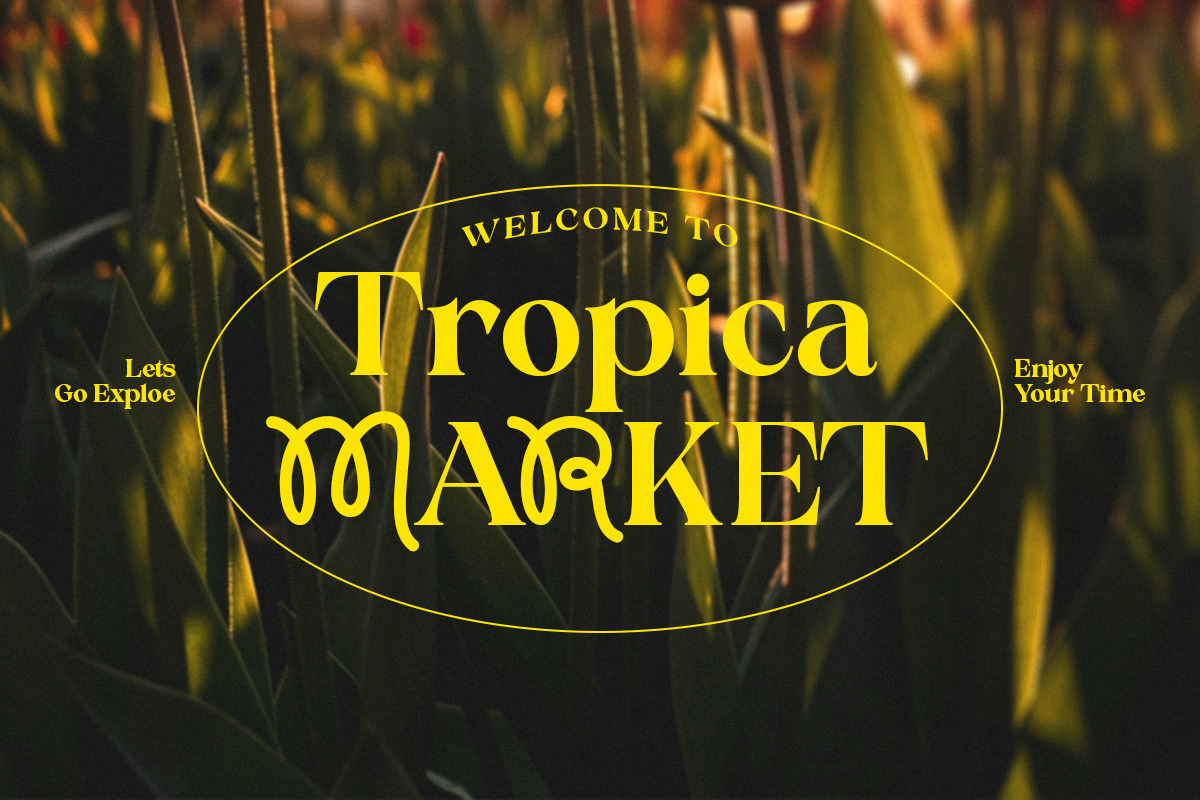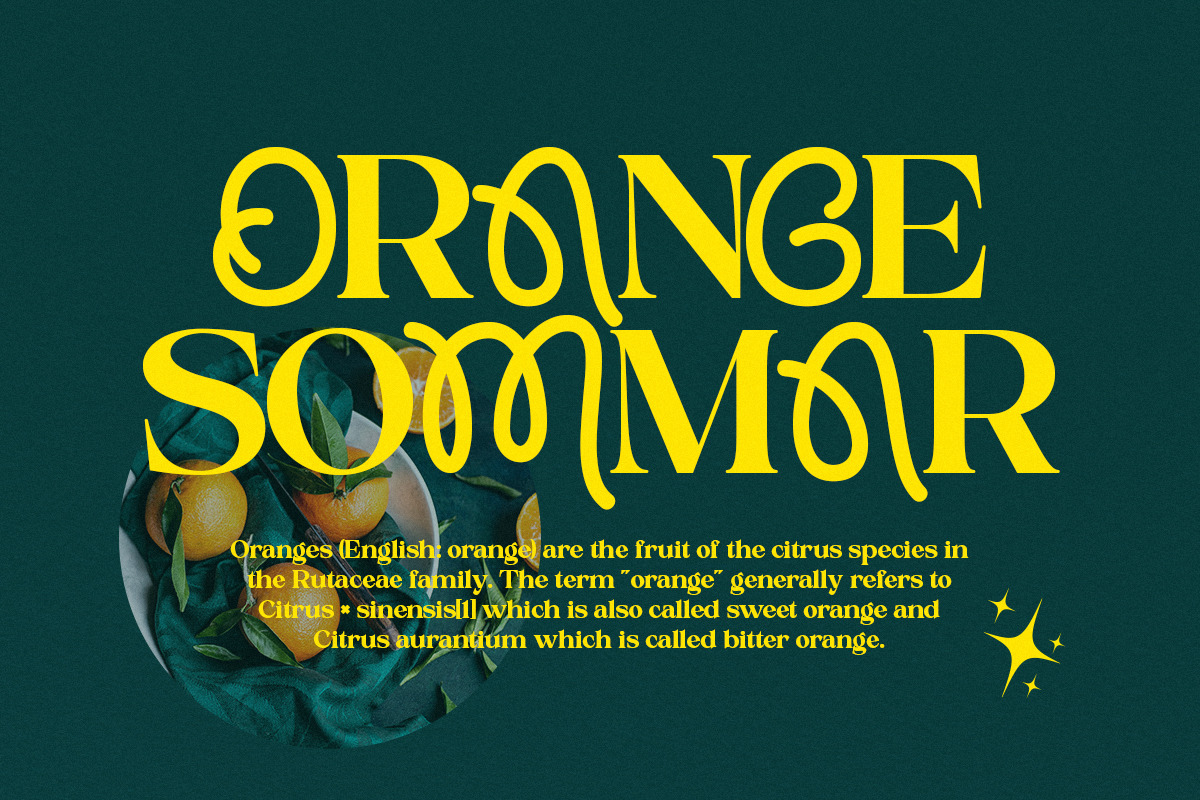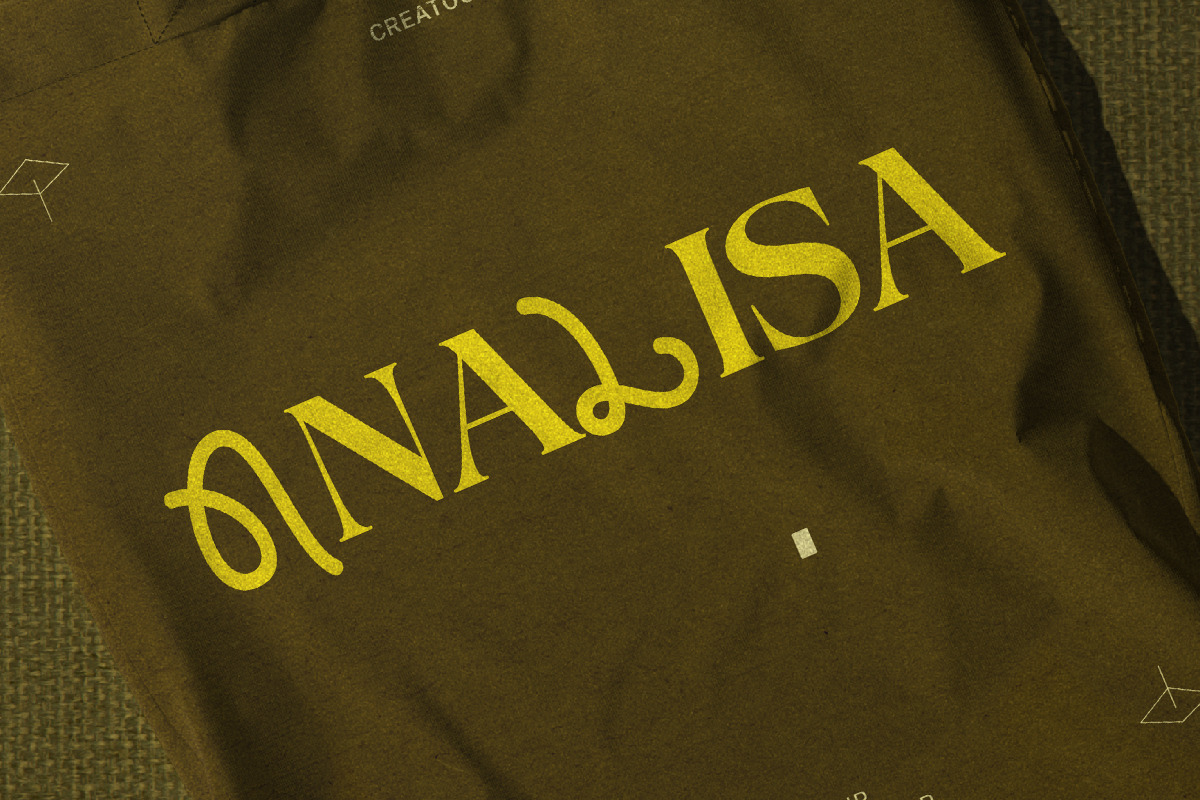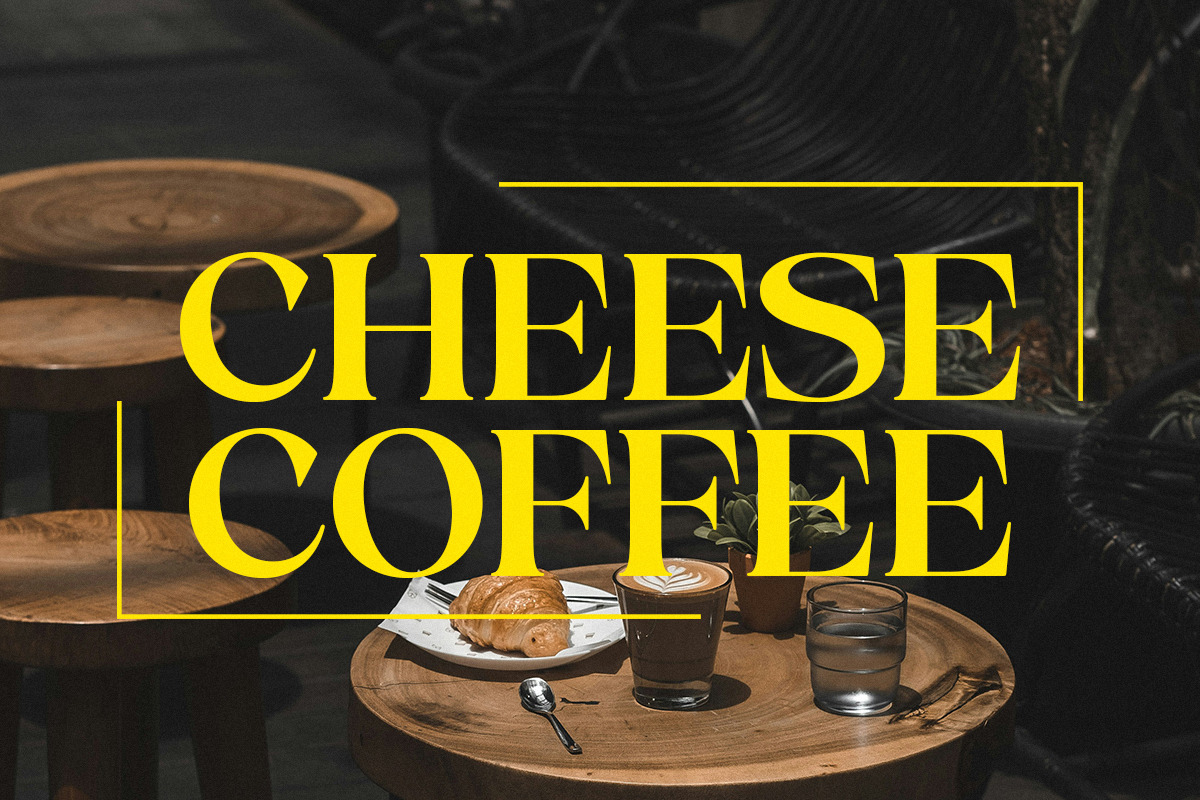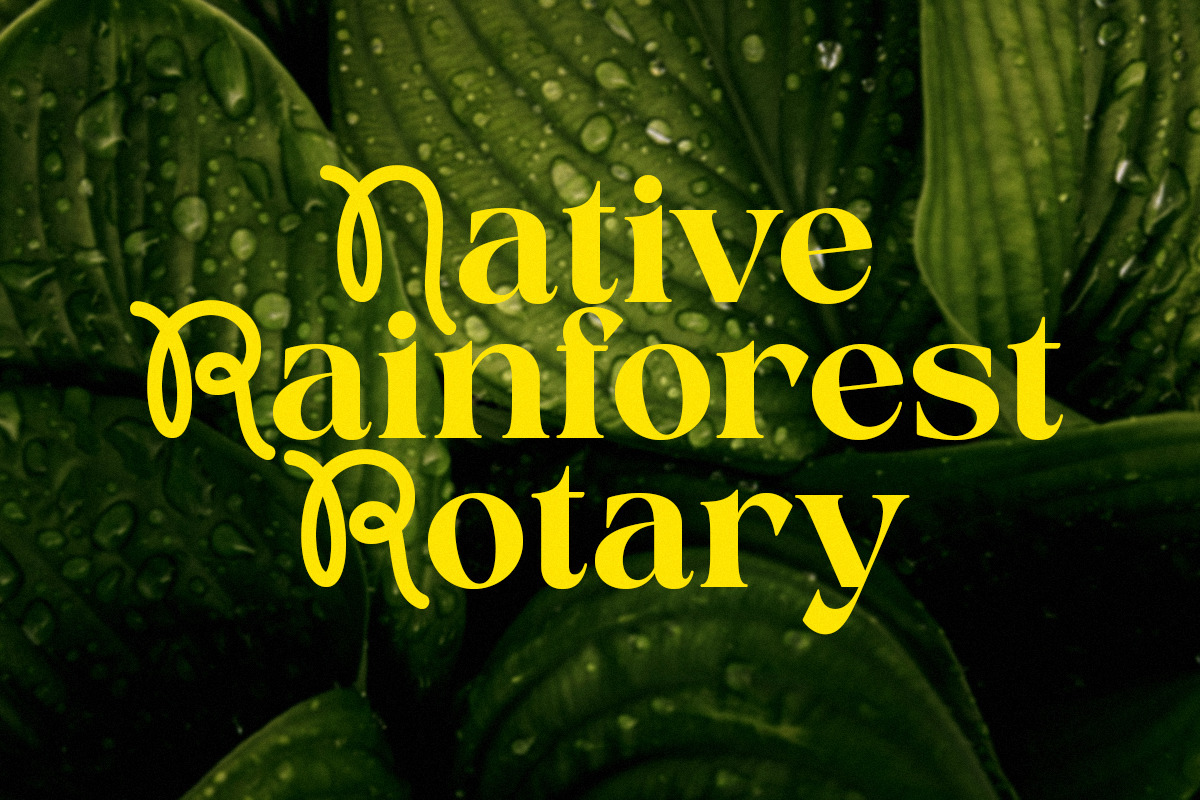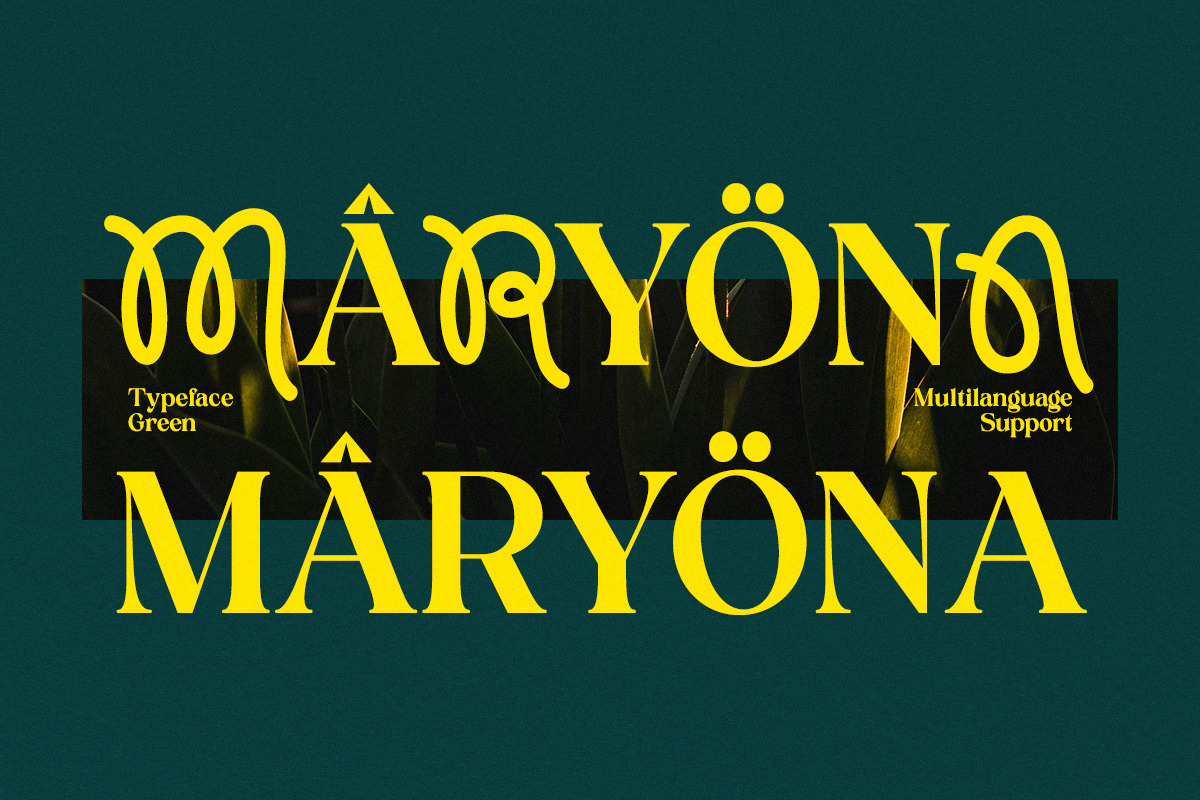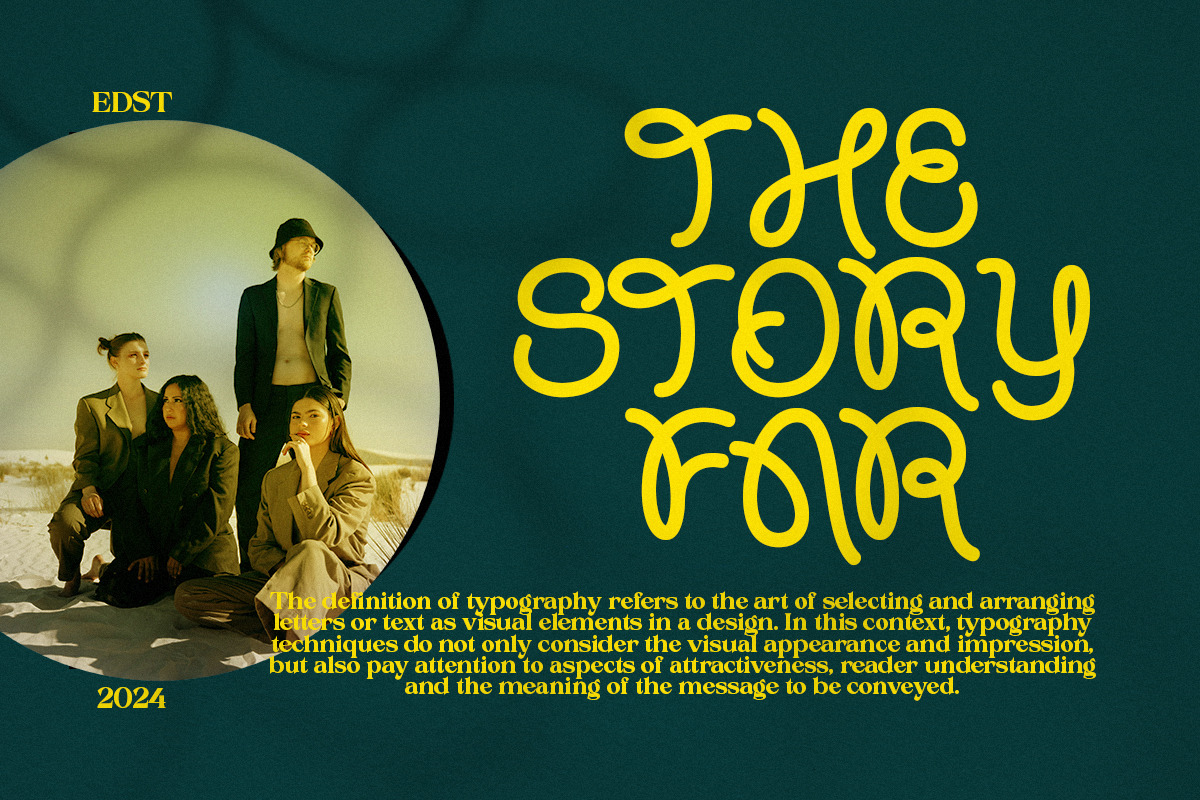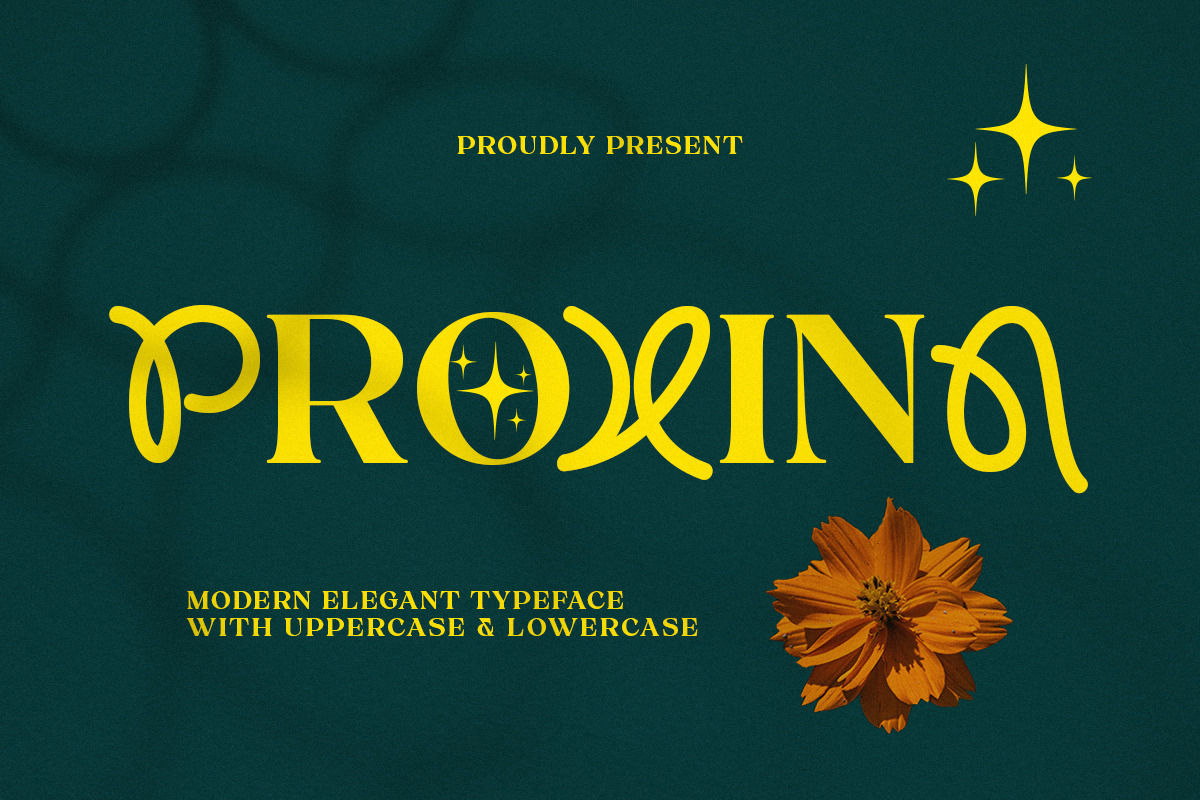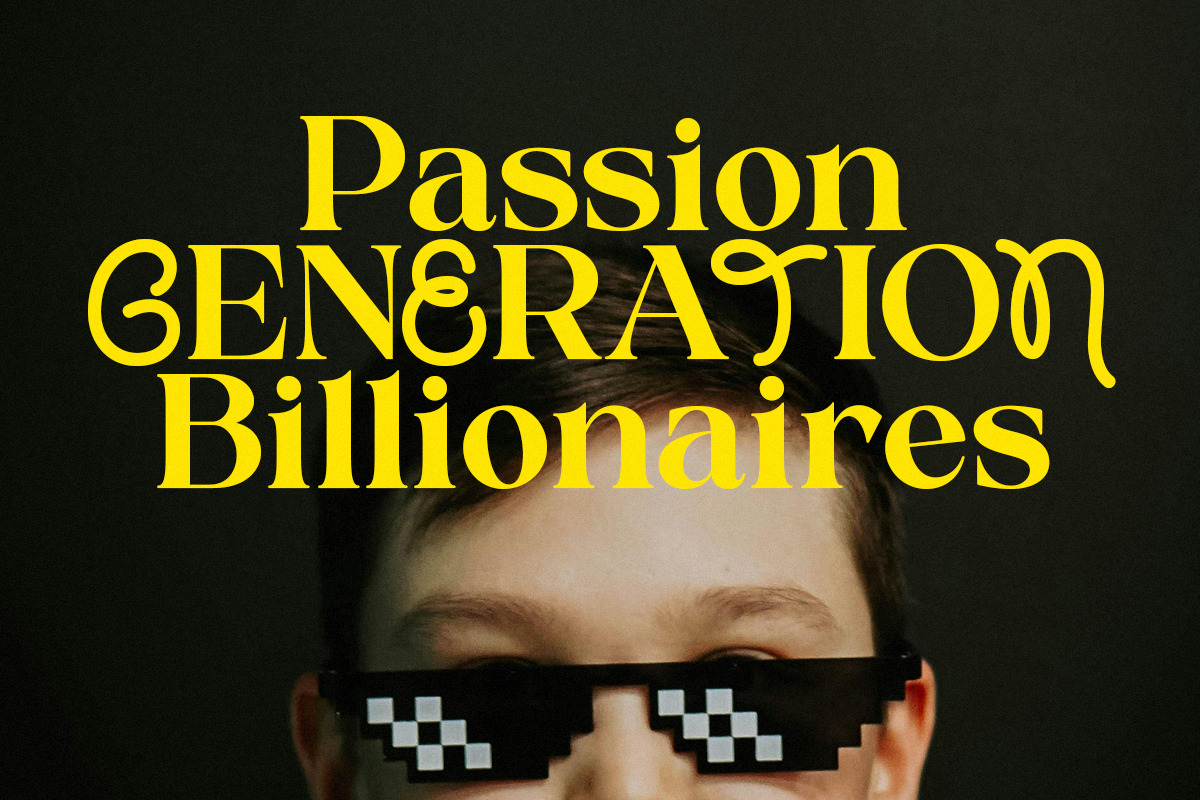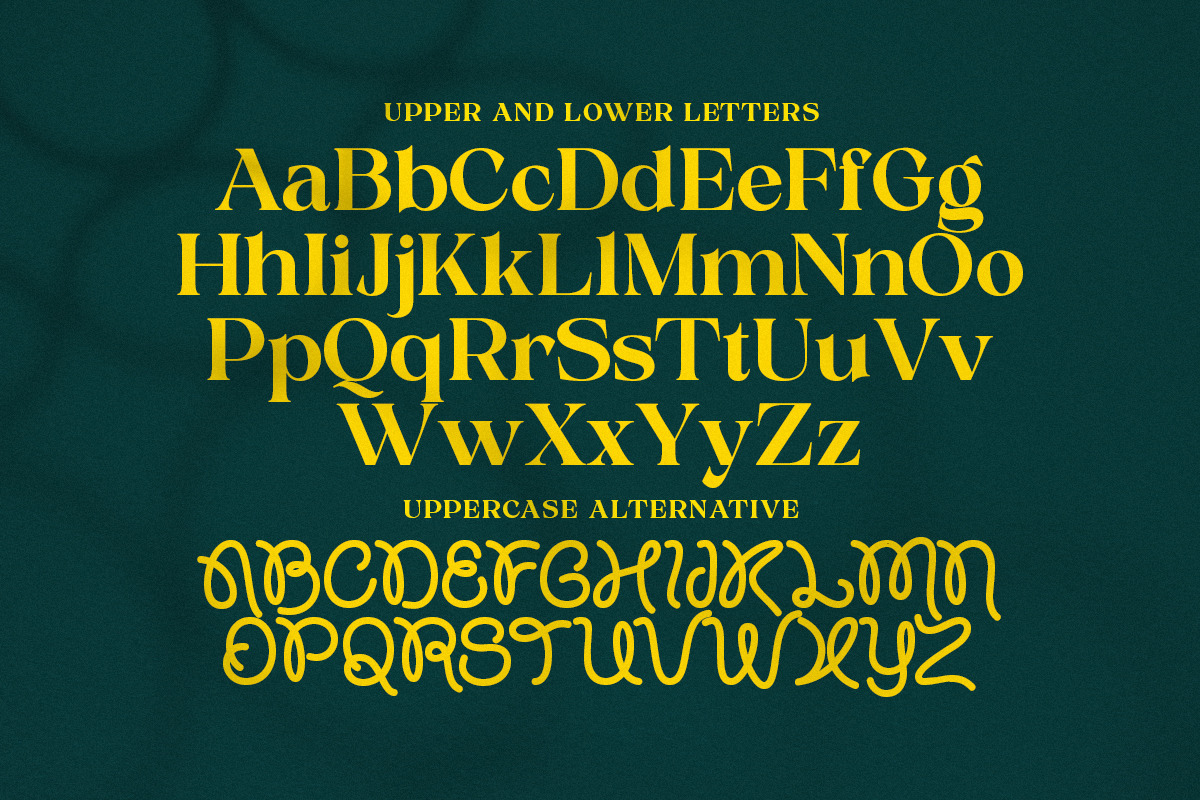
Proxina Serif Font
Proxina is an experimental combination font. includes 2 fonts that have very different styles and appearances, but make this font look unique.
This font is equipped with several features such as alternative characters, and multilingual support which makes it easier for you to design. This font is perfect for your design needs such as poster design, logo design, branding, social media design, books, magazines, etc.
FEATURE:
Number Uppercase Lowercase Punctuation and Signs Symbol style set Update : New glyphs & style sets